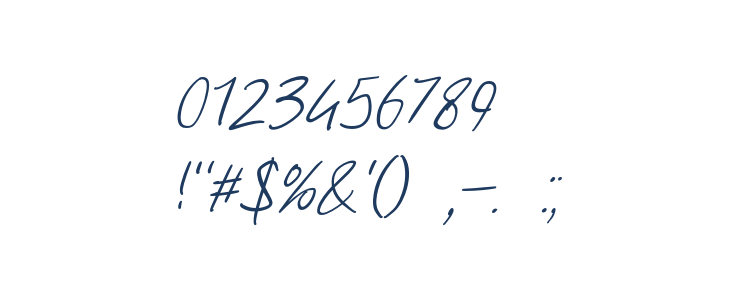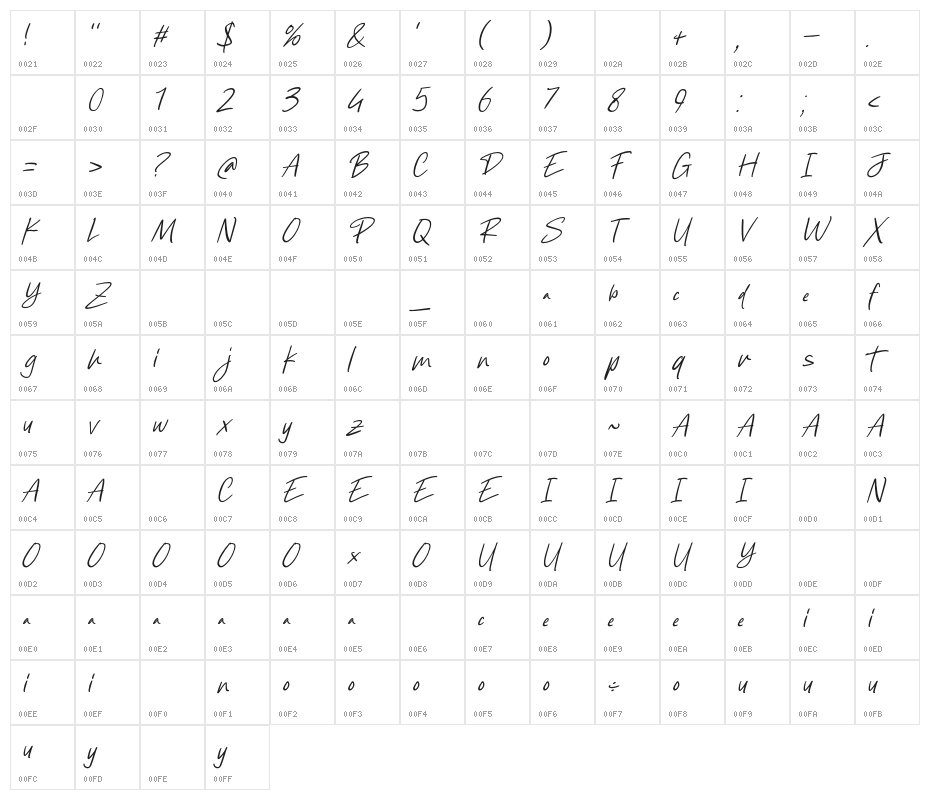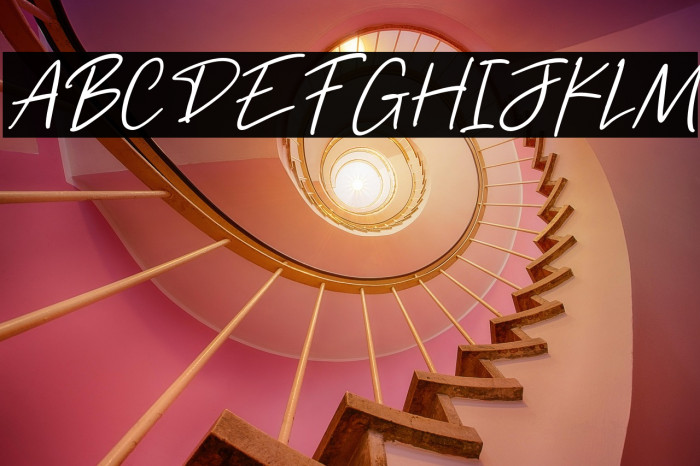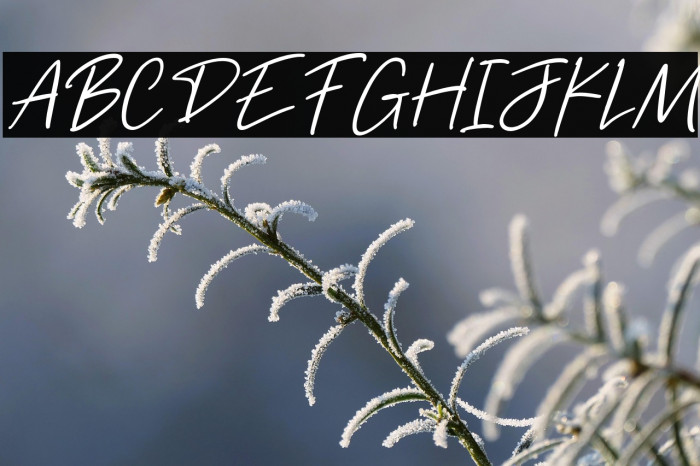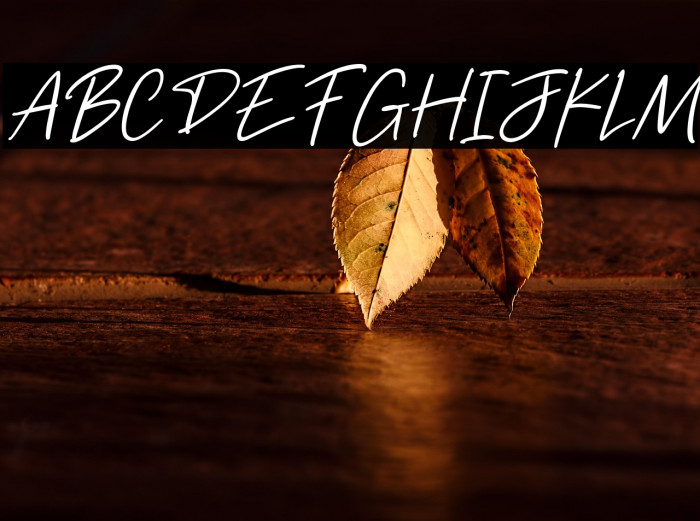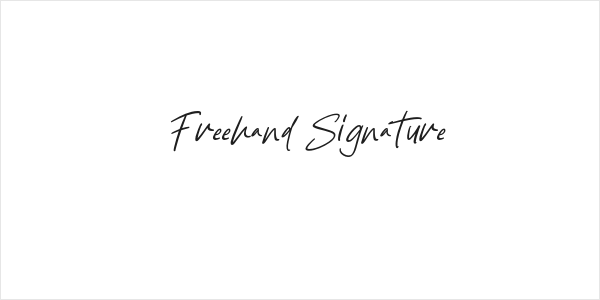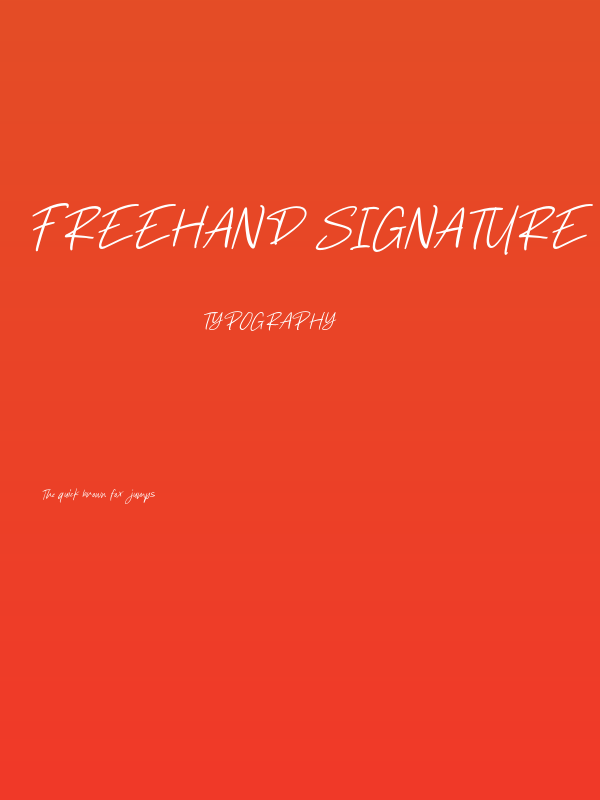
Freehand Signature Font
Freehand Signature Description
This font exudes a casual and personal touch, reminiscent of a handwritten signature. The letters are fluid and connected, giving it a natural flow that mimics real handwriting. The uppercase letters are bold and slightly slanted, while the lowercase letters maintain a consistent style with a more delicate touch. Numbers and special characters follow the same handwritten style, ensuring uniformity across all glyphs. This font is perfect for adding a personal and informal feel to any project, making it ideal for invitations, personal branding, and creative designs.
| Overall Style | Casual, Personal |
| Use Case | Logos, Invitations, Personal branding |
| Proposed Projects | Ideal for invitations, personal branding, creative designs, and any project needing a personal touch. |